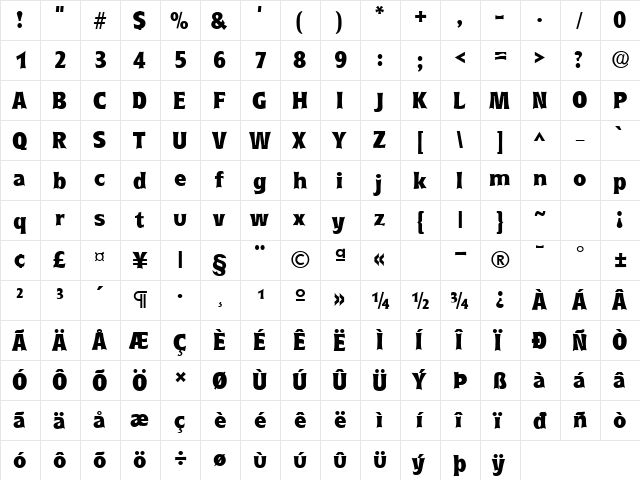
Unplug Regular
Design Context for Unplug Typeface
Unplug offers clean, dependable letterforms without strong stylistic allegiance, making it a practical choice for designers who need flexibility.